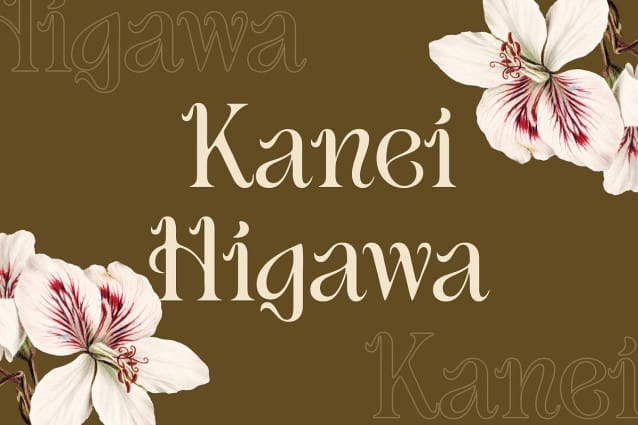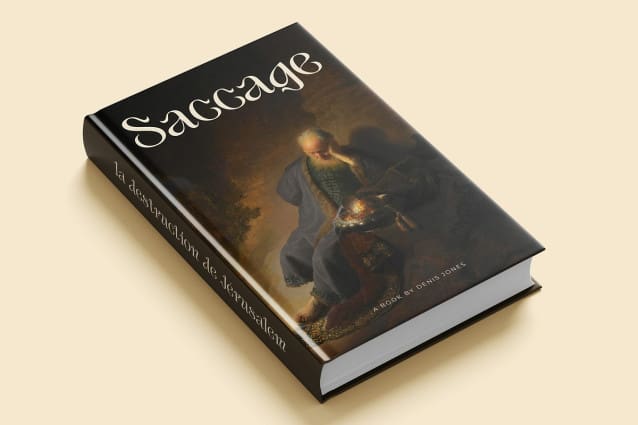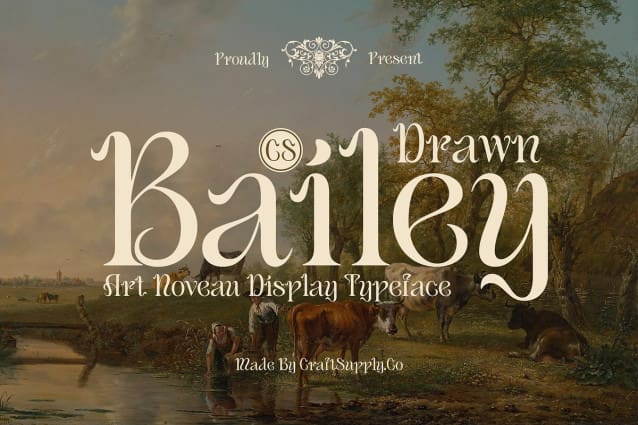
CS Bailey Drawn Font
CS Bailey Drawn Font is a stunning display serif font that beautifully embodies the Art Nouveau style, characterized by its organic lines and intricate details. The font’s elegant curves and decorative flourishes create a sophisticated and artistic ambiance, making it an exceptional choice for designs that seek to convey beauty and refinement.
Handcrafted Aesthetic Layered with a drawn effect, this font adds a unique personal touch to each letter, enhancing its visual appeal with a handcrafted feel. This effect evokes warmth and invites engagement, making the font not only visually captivating but also deeply resonant in its presentation. The handcrafted quality infuses a sense of authenticity and care into your projects.
Ideal Applications Perfect for luxury branding, invitations, and editorial design, this drawn font elevates any project by infusing it with a romantic and enchanting vibe. Its intricate detailing and graceful forms make it suitable for high-end applications, ensuring that every piece stands out with elegance and charm. Whether you’re crafting sophisticated wedding invitations, creating exquisite product packaging, or designing a captivating magazine spread.